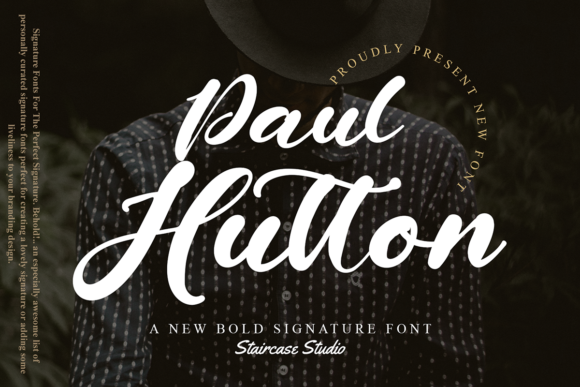
Embrace the timeless beauty of Paul Hutton, a script font crafted with elegance and contemporary charm. Inspired by classic calligraphy, this font exudes a harmonious balance, not too thin, not too thick, designed to elevate your creative projects to new heights.
Step into the world of Paul Hutton and experience the enchanting blend of classic and modern. Its meticulously crafted letterforms dance across the page with a fluidity that captures the essence of timeless elegance. Each stroke and curve intertwines perfectly, creating a visual masterpiece that will leave a lasting impression.
Whether you're a seasoned designer or just starting your creative journey, Paul Hutton is the perfect companion for your projects. Its versatility knows no bounds, effortlessly adapting to a wide range of design styles. From elegant invitations and logos to captivating social media posts and website designs, Paul Hutton adds a touch of sophistication and charm that will make your creations shine.
With Paul Hutton, you unlock a world of endless possibilities. Let your imagination soar as you craft captivating headlines that demand attention, design logos that exude professionalism, and create social media content that sparks engagement and leaves your audience swooning. The possibilities are limitless, bound only by the reaches of your creativity.
So why settle for ordinary when you can embrace the extraordinary? Choose Paul Hutton and embark on a creative journey that will leave you breathless. Its elegant script will add a touch of magic to your designs, leaving a lasting impression on anyone who encounters your work. Join the ranks of creative visionaries who have discovered the power of Paul Hutton and elevate your projects to new heights of beauty and sophistication.